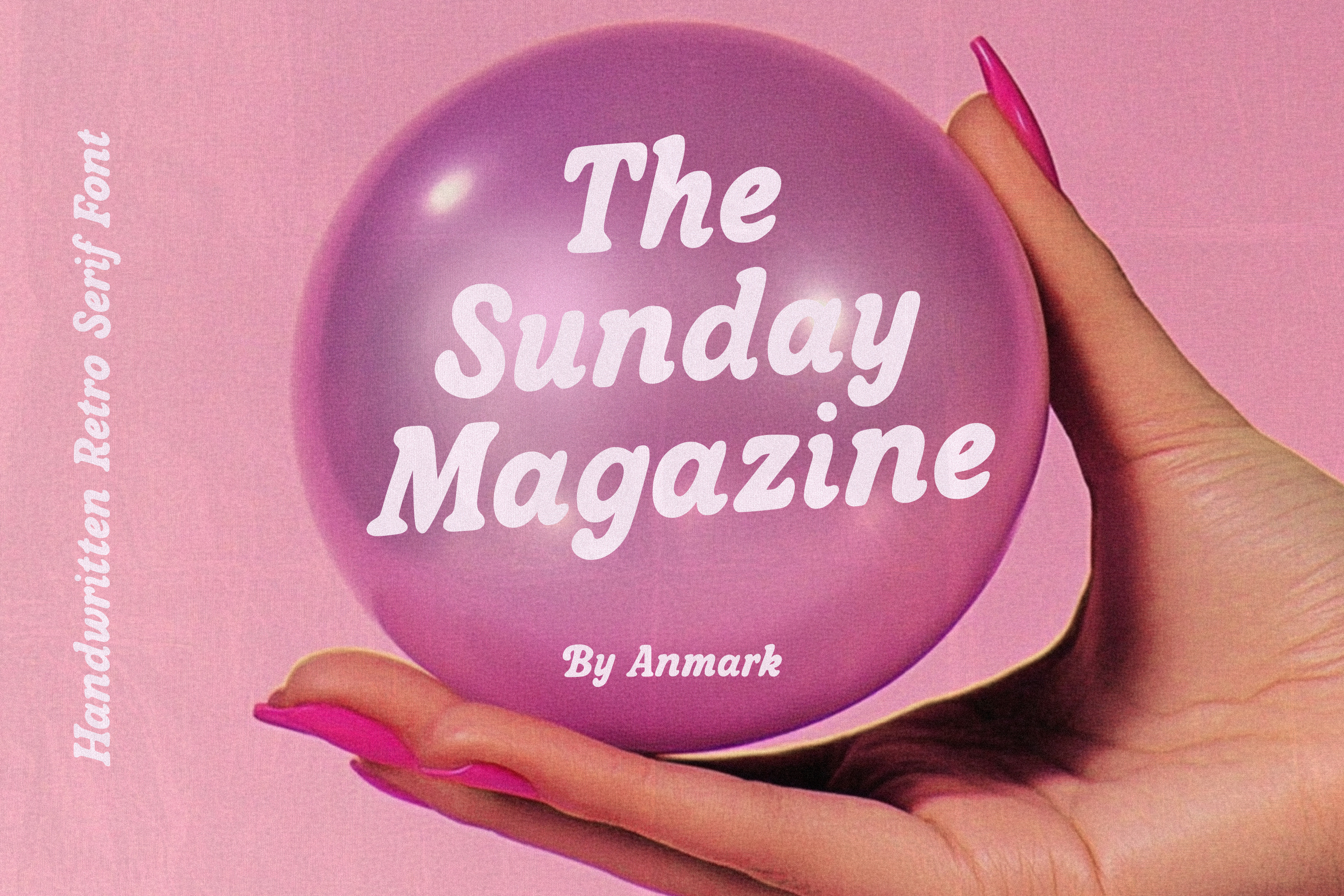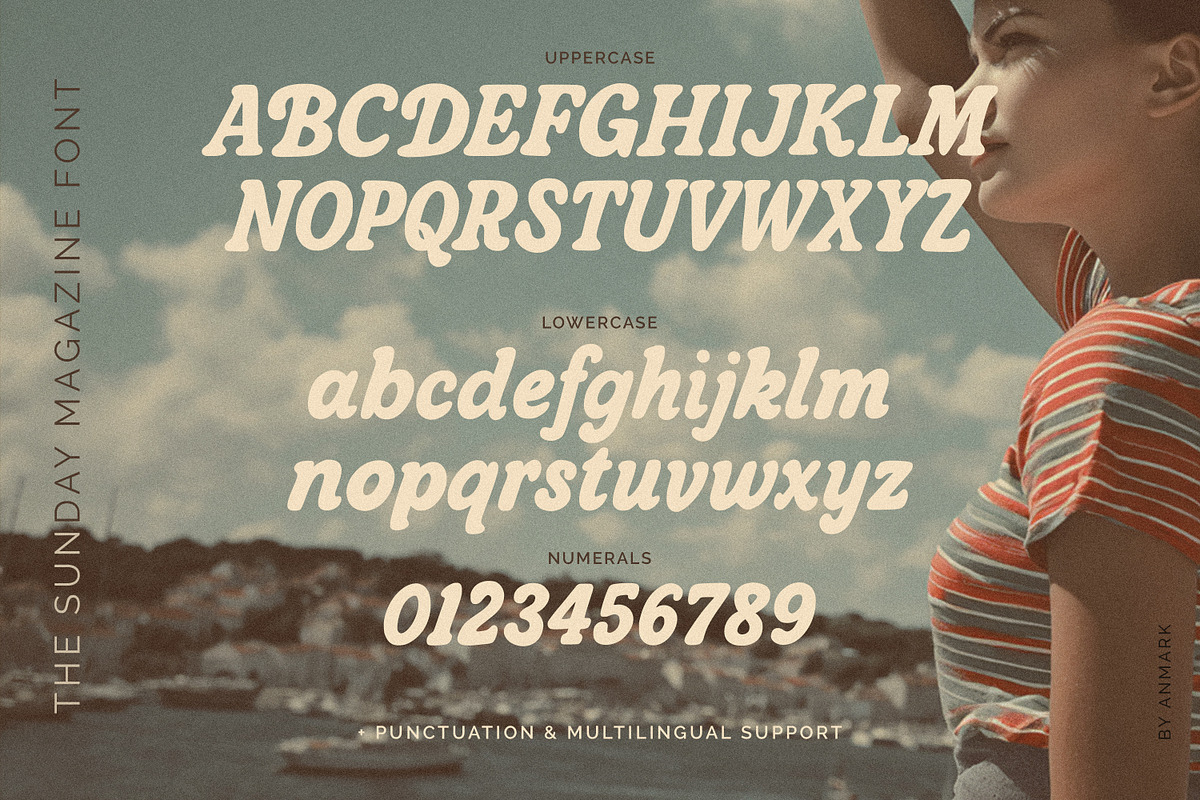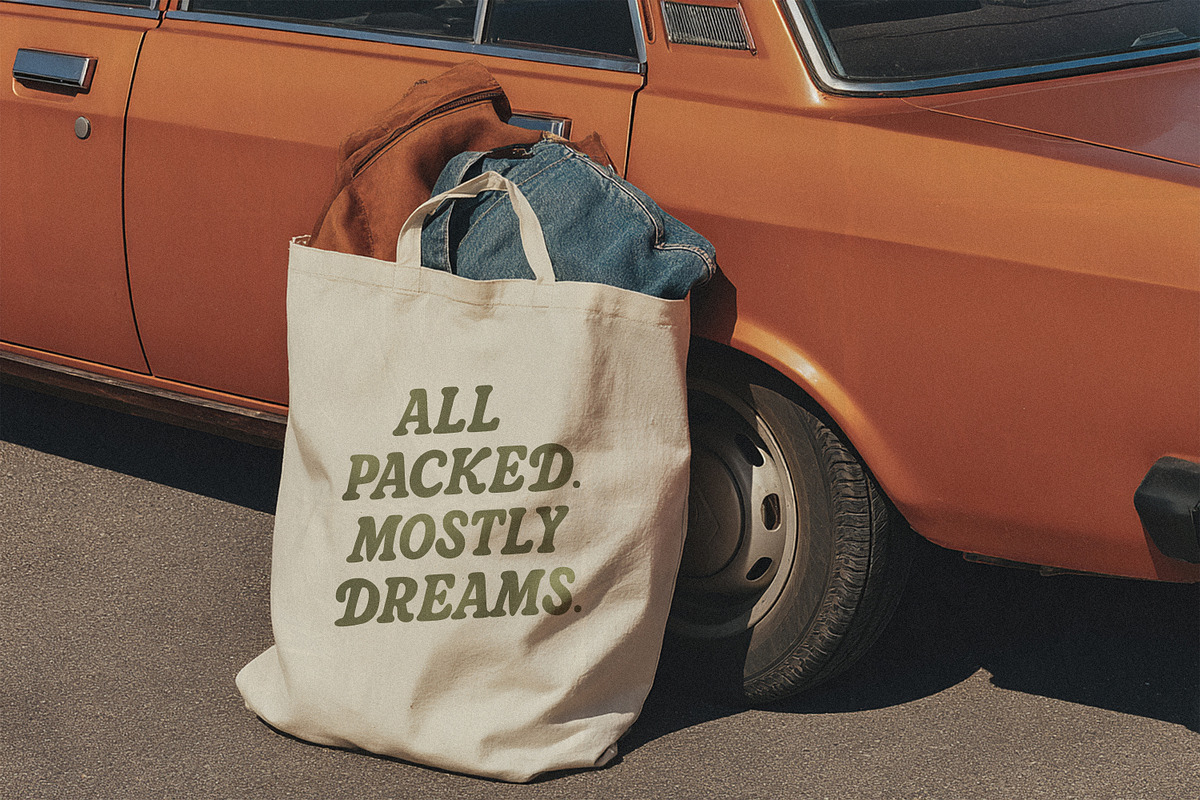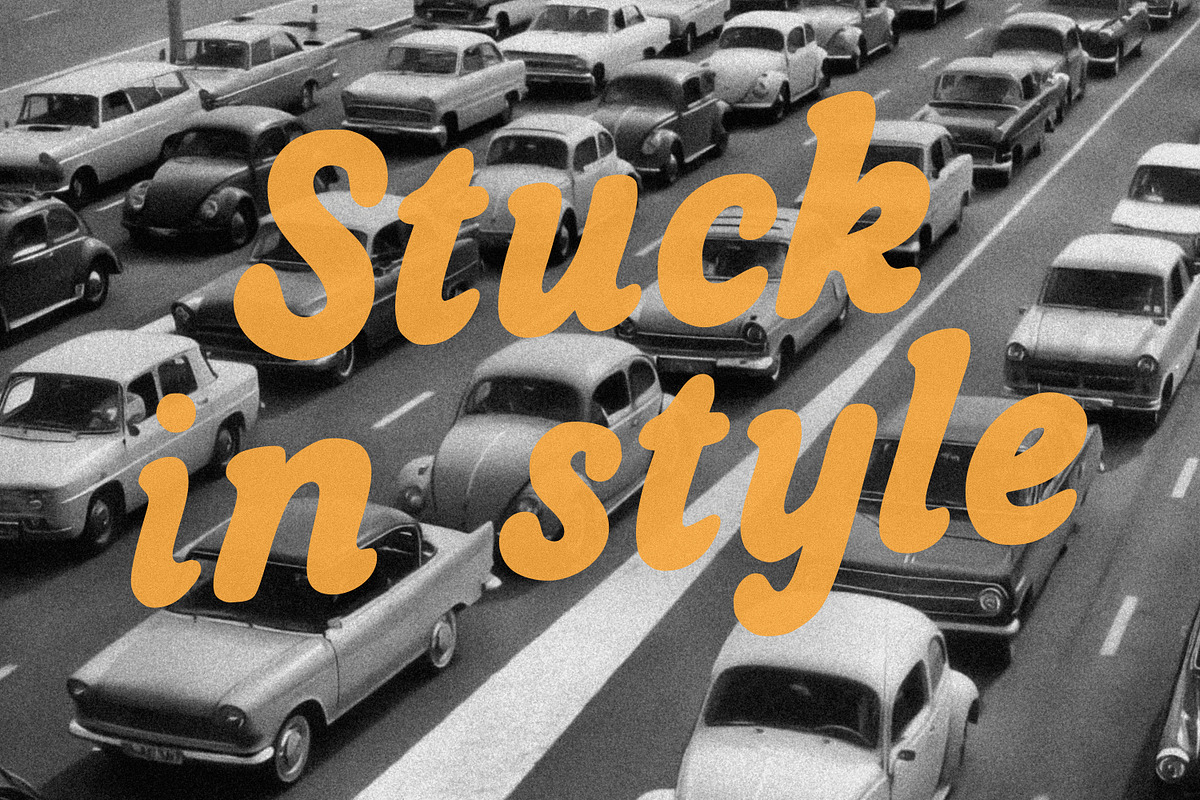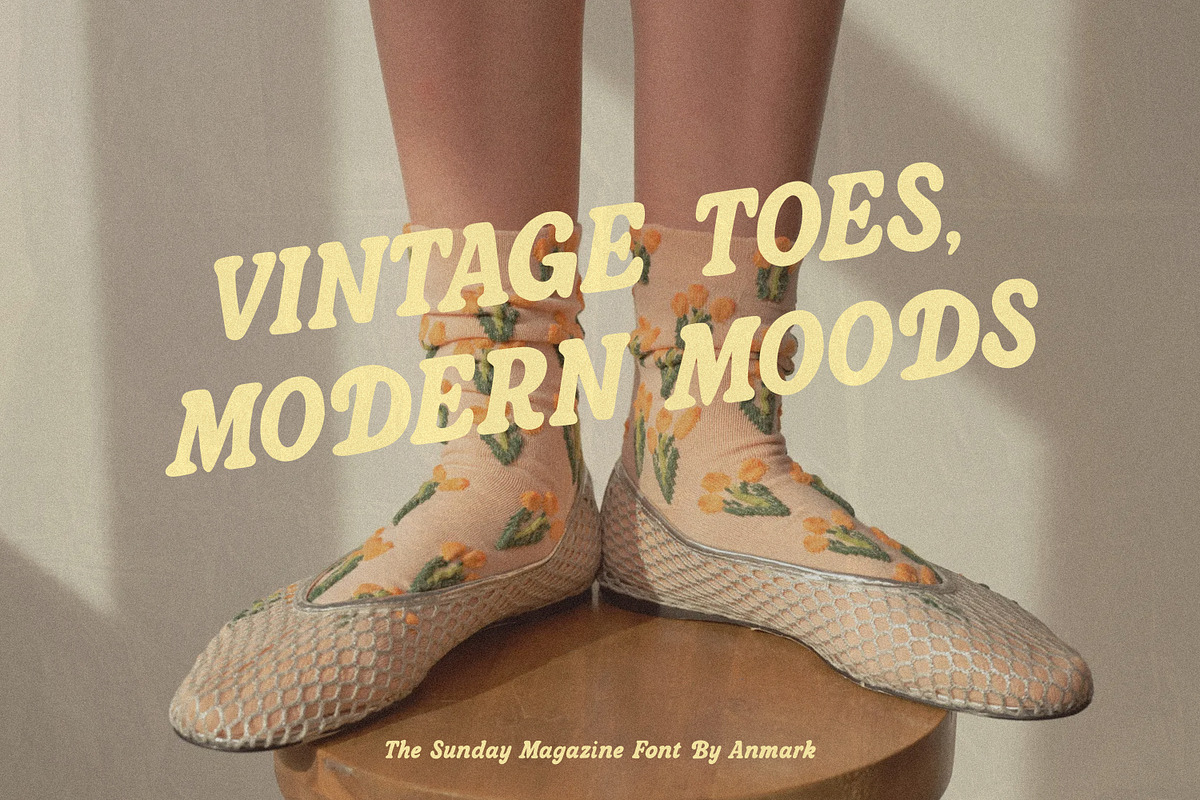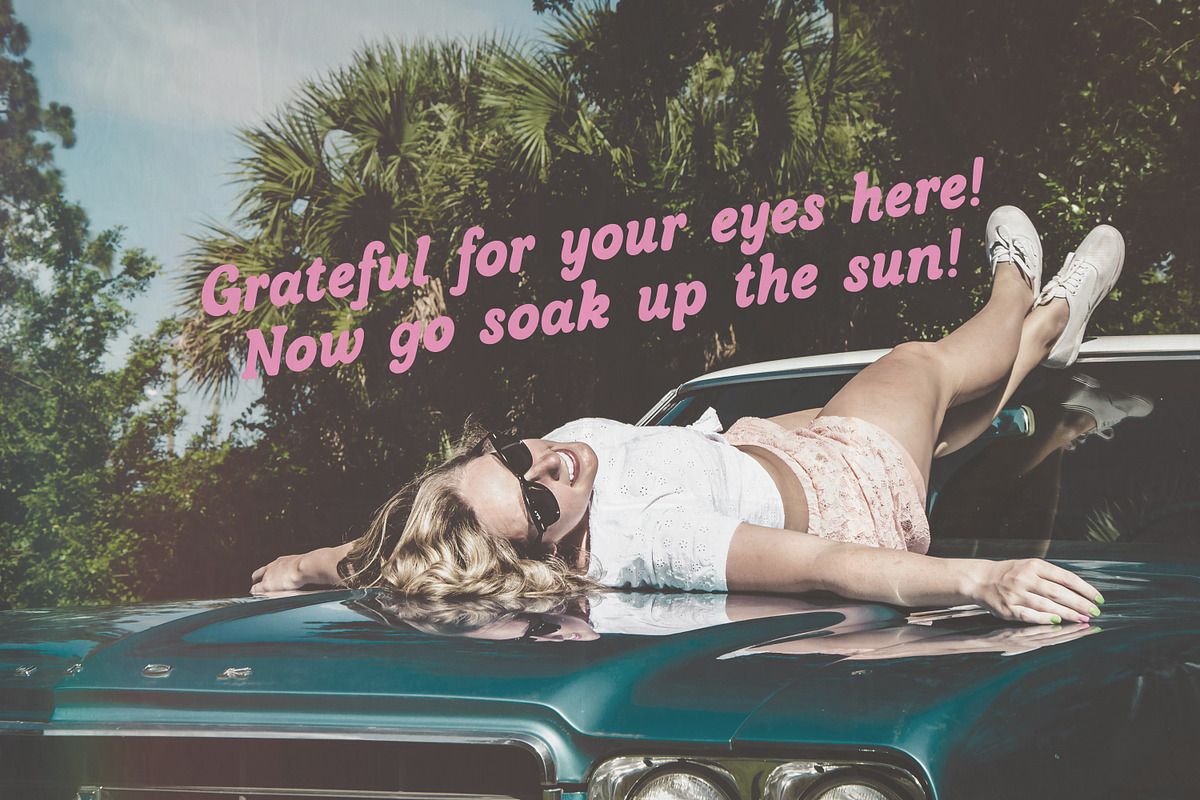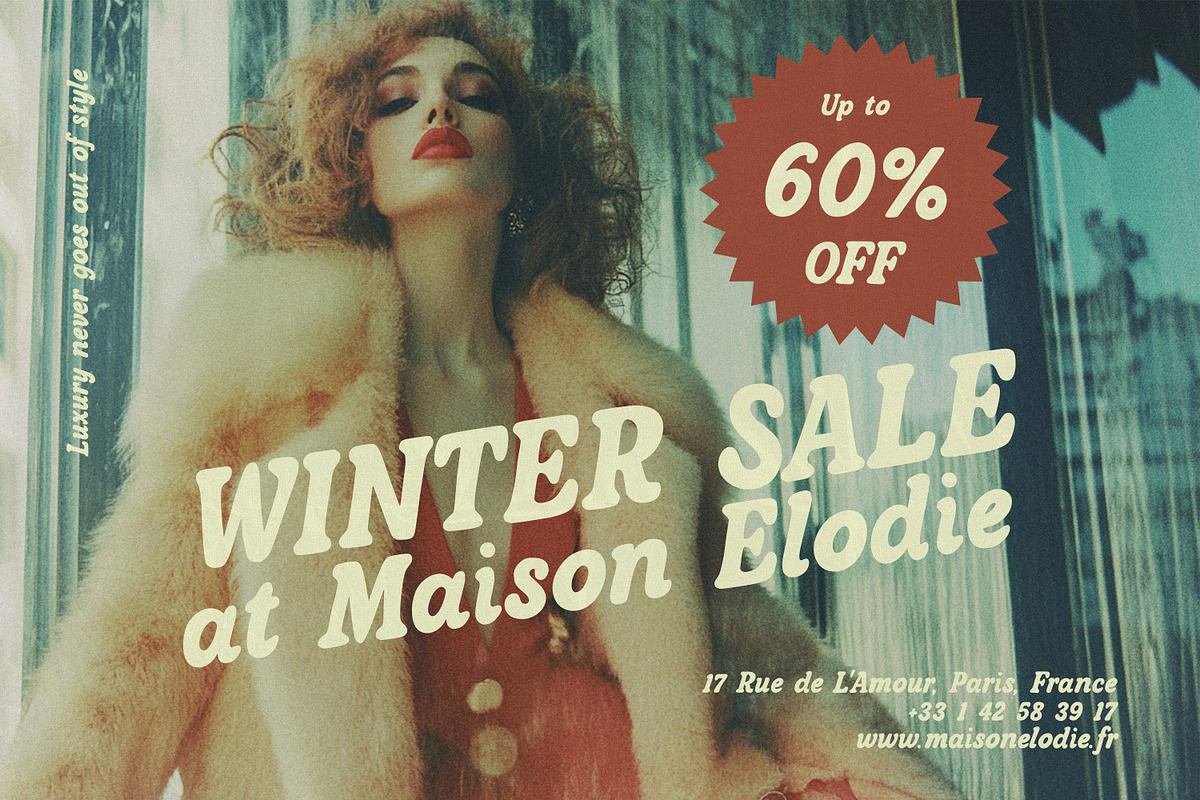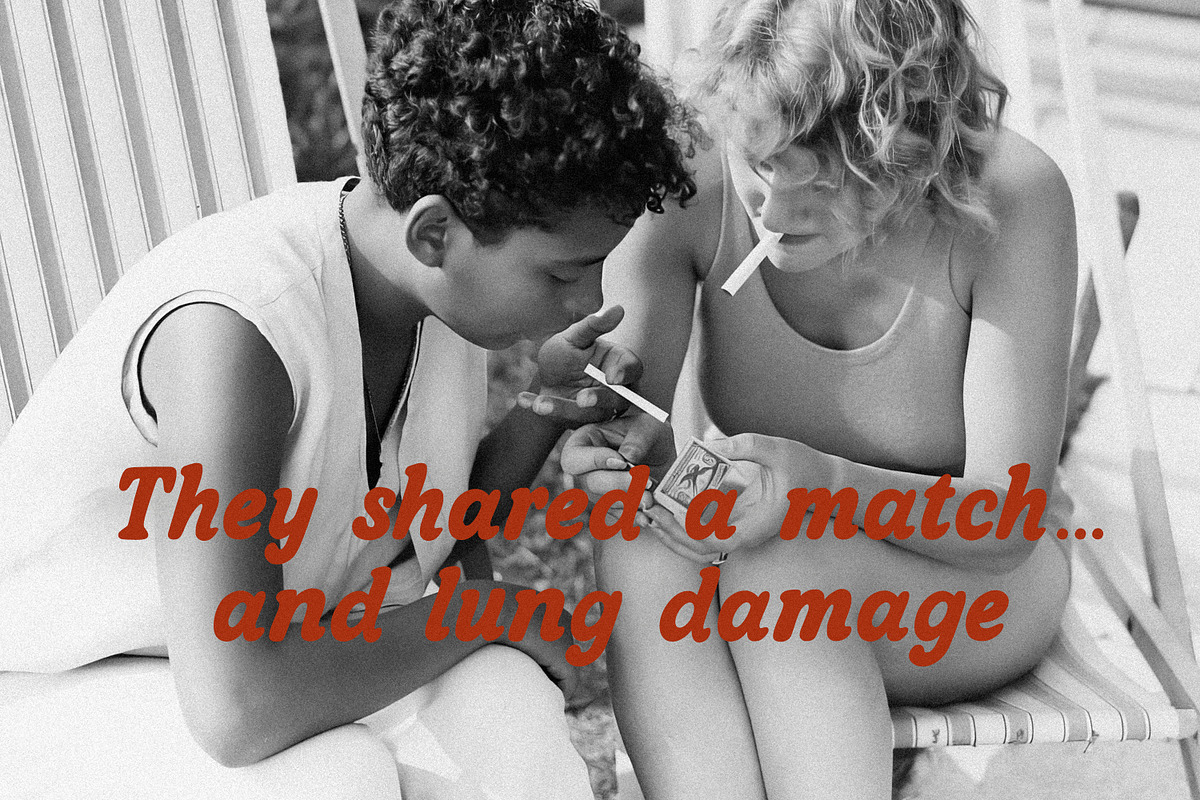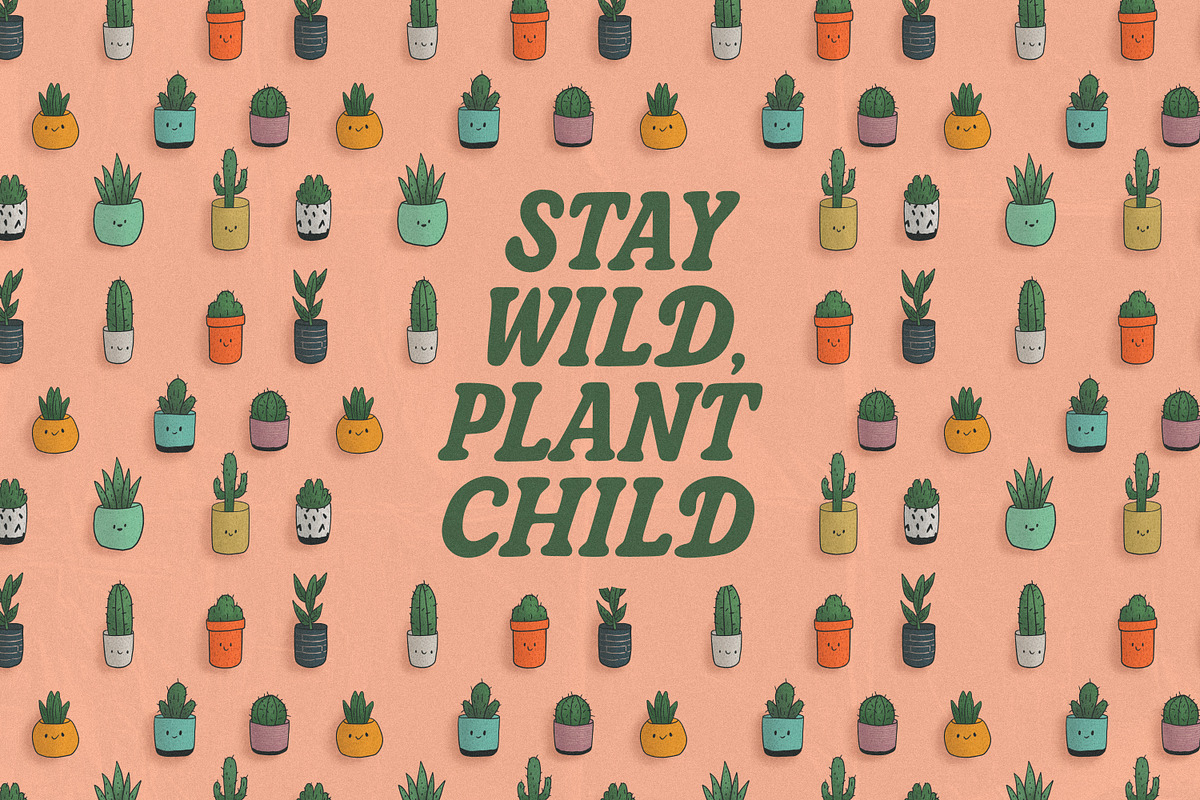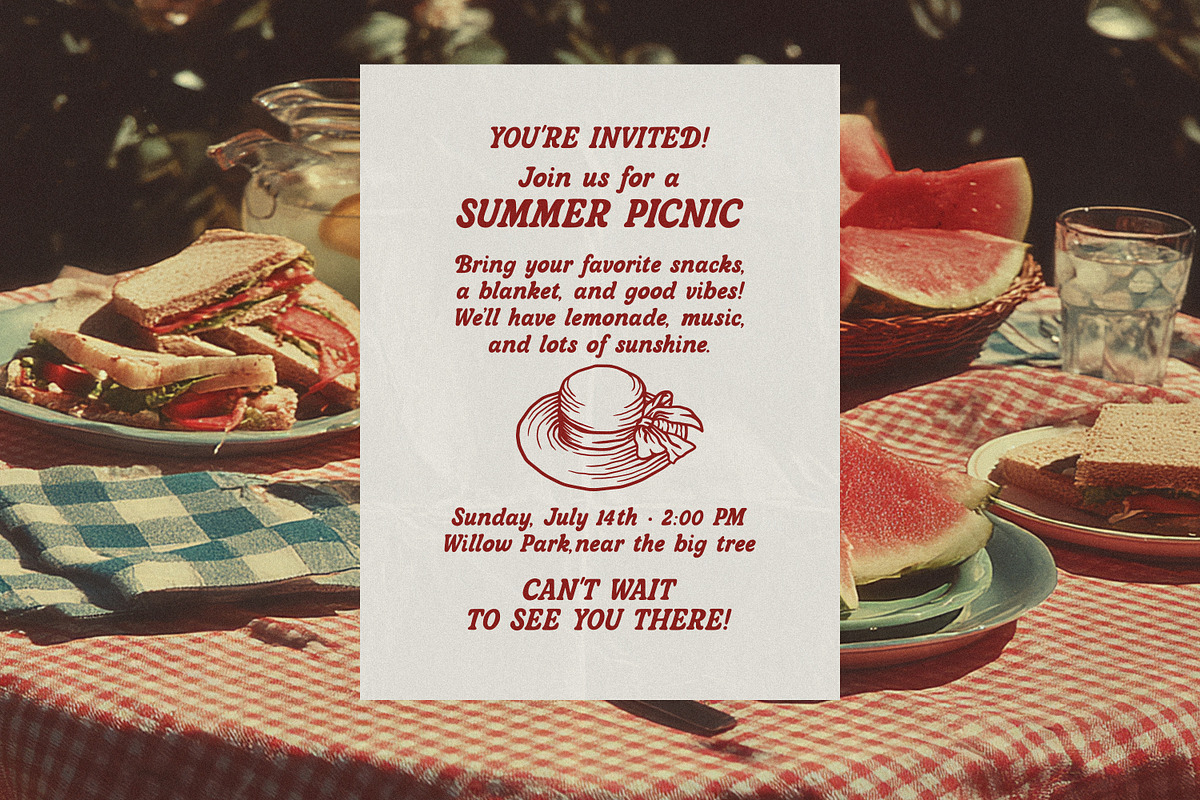
The Sunday Magazine - Retro Font
The Sunday Magazine - Playful Retro Serif Font
Meet The Sunday Magazine - a charming serif typeface with a nostalgic heart and a playful soul. Inspired by vintage editorials, handwritten headlines, and the slow beauty of printed Sundays, this font brings warmth and personality to every project.
Its distinctive letterforms feel both timeless and fresh, making it perfect for modern creatives who love a retro twist. Whether you're designing wedding stationery, cafe menus, product packaging, or social media graphics, The Sunday Magazine adds an effortlessly elegant touch.
Perfect for: • Wedding invitations & day-of signage • Restaurant or café menus • Editorial layouts & branding • Greeting cards & gift tags • Retro-inspired quotes and prints
Let The Sunday Magazine bring a touch of vintage charm to your modern designs - with character, warmth, and just the right amount of nostalgia.